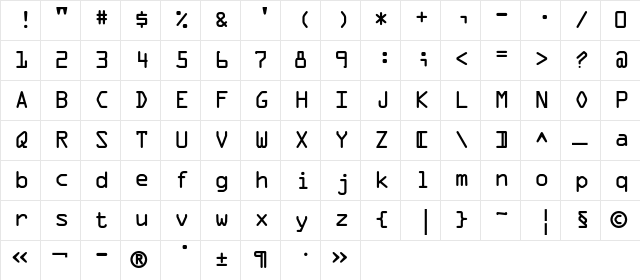
OCR_OneC Regular
Design Context for OCR_OneC Typeface
OCR_OneC is a composed and adaptable typeface that performs quietly and consistently across a wide range of design contexts.